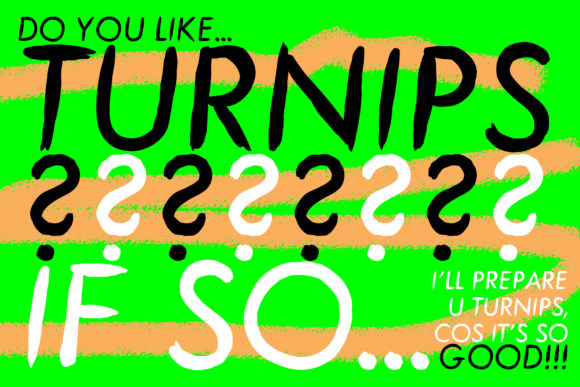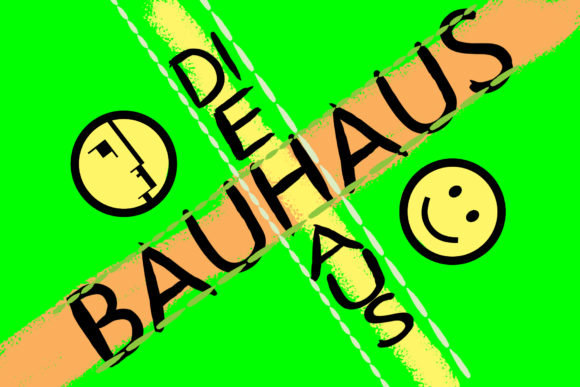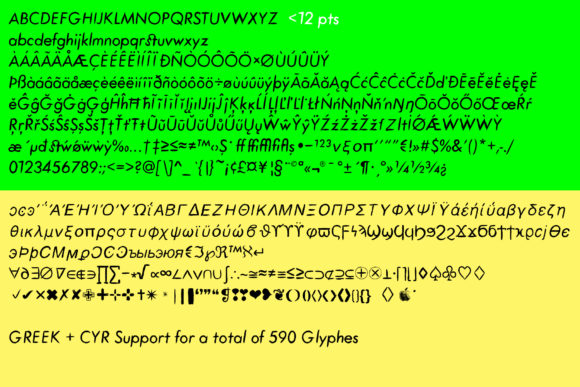
Futurmana Font: A Fresh Take on a Classic
In the world of typography, few fonts have stood the test of time like Futura. Designed in 1927 by Paul Renner, Futura has been a staple of modern design for nearly a century. Its clean lines, geometric shapes, and sans-serif elegance have made it a favorite among designers and brands alike. But what happens when you take a classic font like Futura and give it a hand-drawn twist? Enter Futurmana, a beautiful and unique take on the original.
What is Futurmana?
Futurmana is a hand-drawn version of the classic Futura typeface. This gorgeous sans-serif font offers a fresh and authentic take on one of the most popular fonts of the past century. With its carefully crafted letterforms and subtle imperfections, Futurmana brings a human touch to the geometric precision of Futura. The result is a font that feels both modern and approachable, making it perfect for a wide range of design applications.
The Inspiration Behind Futurmana
The creators of Futurmana drew inspiration from the original Futura design, but with a clear goal in mind: to create a font that felt more organic and hand-crafted. By introducing subtle variations in line width, letterform shape, and spacing, they were able to give Futurmana a unique personality that sets it apart from its geometric ancestors. This attention to detail and commitment to quality is evident in every aspect of the font, from its elegant capitals to its charming lowercase letters.
Key Features of Futurmana
So what makes Futurmana so special? Here are just a few of the key features that set it apart:
- Hand-drawn elegance: Futurmana’s letterforms are carefully crafted to feel both refined and approachable.
- Geometric precision: Despite its hand-drawn nature, Futurmana retains the geometric precision and clean lines that make Futura so iconic.
- Subtle imperfections: Futurmana’s design includes subtle variations in line width, shape, and spacing, giving it a uniquely human feel.
- Multilingual support: Futurmana supports a wide range of languages, making it a versatile choice for global brands and designers.
Using Futurmana in Your Designs
Futurmana is an incredibly versatile font, suitable for a wide range of design applications. Here are just a few ideas to get you started:
- Branding and logos: Futurmana’s unique blend of elegance and approachability makes it perfect for logos and brand identities.
- Headings and titles: Futurmana’s geometric precision and clean lines make it ideal for headings and titles, adding a touch of sophistication to any design.
- Packaging and labels: Futurmana’s hand-drawn charm makes it a great choice for packaging and labels, adding a personal touch to products and packaging.
- Digital interfaces: Futurmana’s legibility and clarity make it well-suited for digital interfaces, from mobile apps to websites.
Futurmana is a truly unique font that offers a fresh take on the classic Futura design. With its hand-drawn elegance, geometric precision, and subtle imperfections, Futurmana is the perfect choice for designers and crafters looking to add a touch of sophistication and personality to their work. Whether you’re creating a brand identity, designing a website, or crafting a beautiful piece of art, Futurmana is sure to inspire and delight.